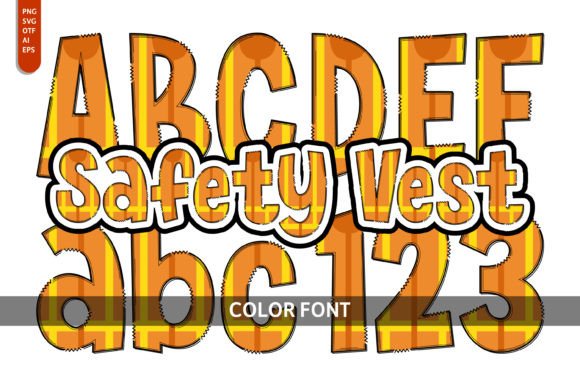
Step into a world of visual enchantment with the Safety Vest Font, a kaleidoscope of colors that will ignite your creativity and transform your designs into captivating masterpieces. This remarkable font family, meticulously crafted by Imagination Switch, bursts with vibrancy, making it the perfect choice for projects that demand attention and evoke pure joy.
Whether you're crafting children's books that transport young minds to magical realms, designing posters that demand attention, or creating invitations and greeting cards that radiate warmth and personality, the Safety Vest Font is your ultimate tool for artistic expression. Its playful nature lends itself effortlessly to illustrations, adding an enchanting touch to every line and curve.
With its exceptional readability, the Safety Vest Font ensures that your message shines through with clarity and impact. Its whimsical charm captivates audiences of all ages, making it an ideal font for educational materials, marketing campaigns, and social media posts that aim to engage and inspire.
Unleash your creativity and let the Safety Vest Font guide you on an artistic journey like no other. Its versatility knows no bounds, allowing you to effortlessly create stunning designs that leave a lasting impression. Dive into a world of color and imagination, where the Safety Vest Font transforms your ideas into captivating realities.